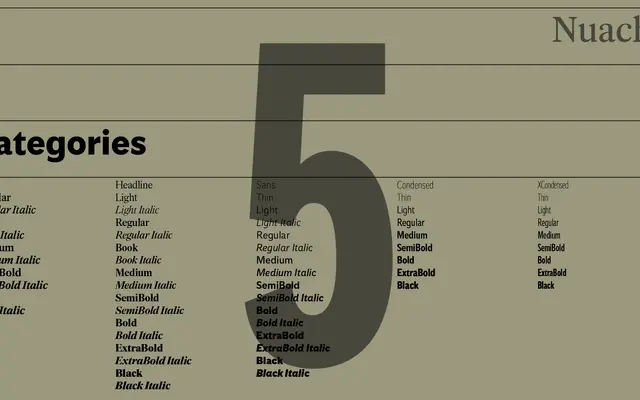
Nuacht Serif Text
A2-Type · 2018
The text-optimised serif cut from a bespoke type system designed for the 2018 Irish Independent redesign, rooted in calligraphic letterforms and SB Times Roman.
Part of a five-subfamily type system commissioned for the Irish Independent, Nuacht Serif Text covers Regular through Bold with matching italics, intended for sustained reading in a broadsheet environment. Its forms draw on calligraphic ink lettering and early metal type references, giving it warmth without sacrificing the economy required at column widths. Variable font versions are available on request, and the full system extends to a headline serif, a humanist sans, and two condensed cuts for sports and infographics.
Drawn from calligraphic ink lettering and early metal type samples of SB Times Roman, placing it in the transitional serif tradition optimised for continuous reading at text sizes.